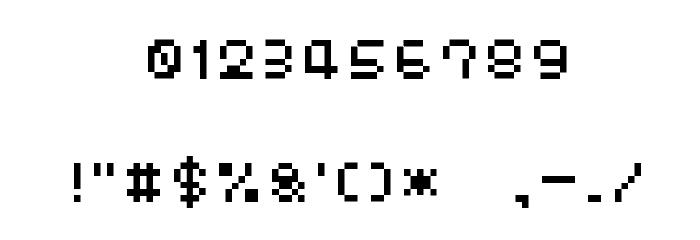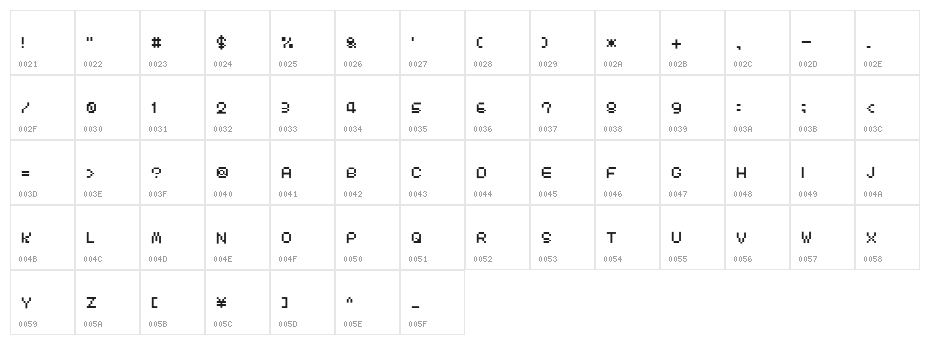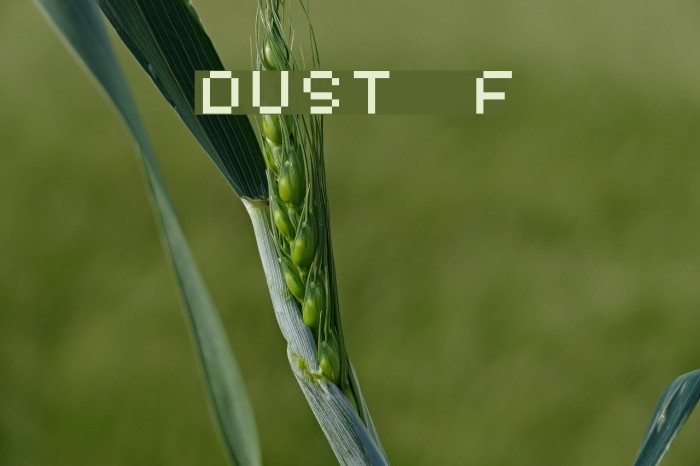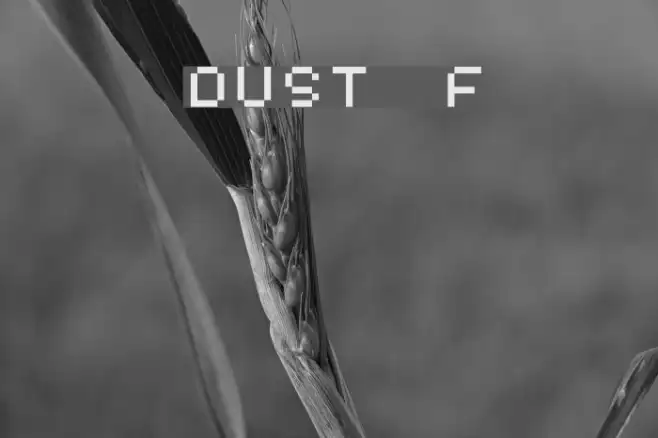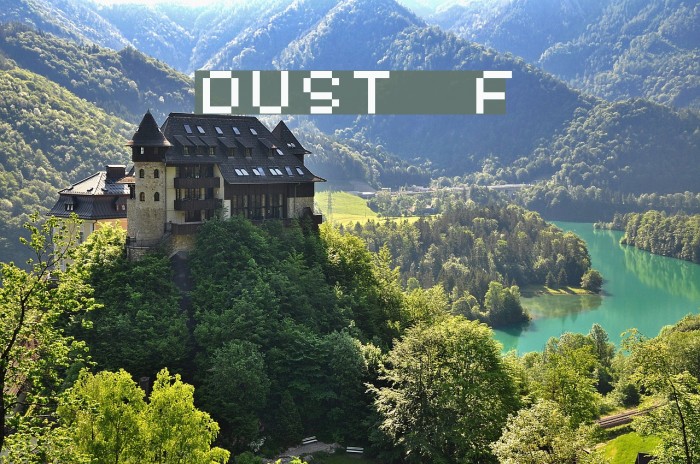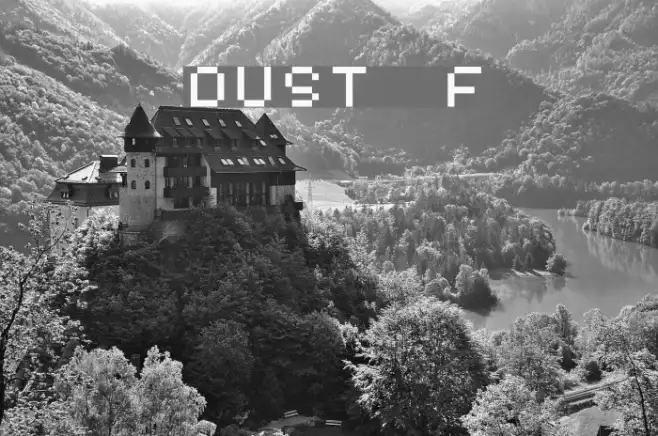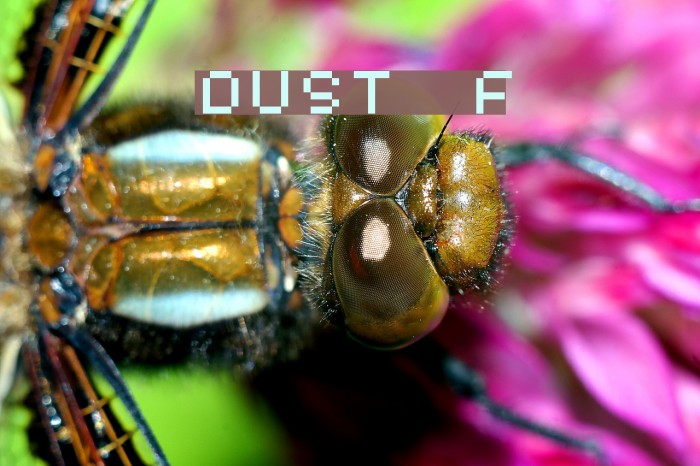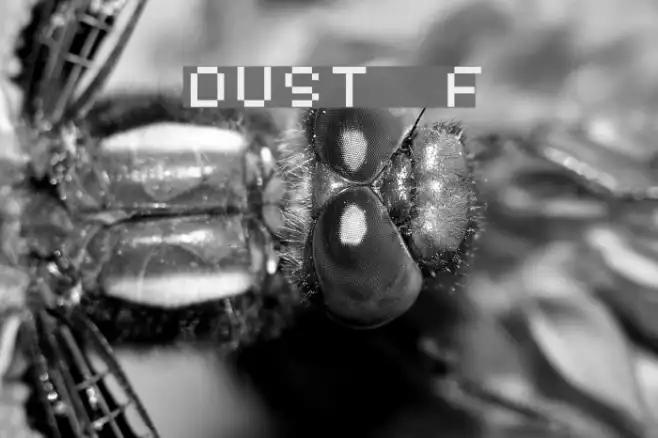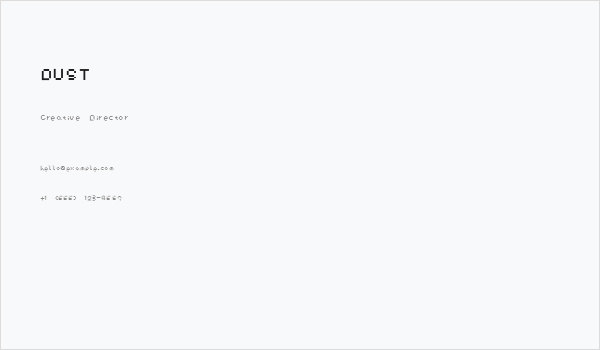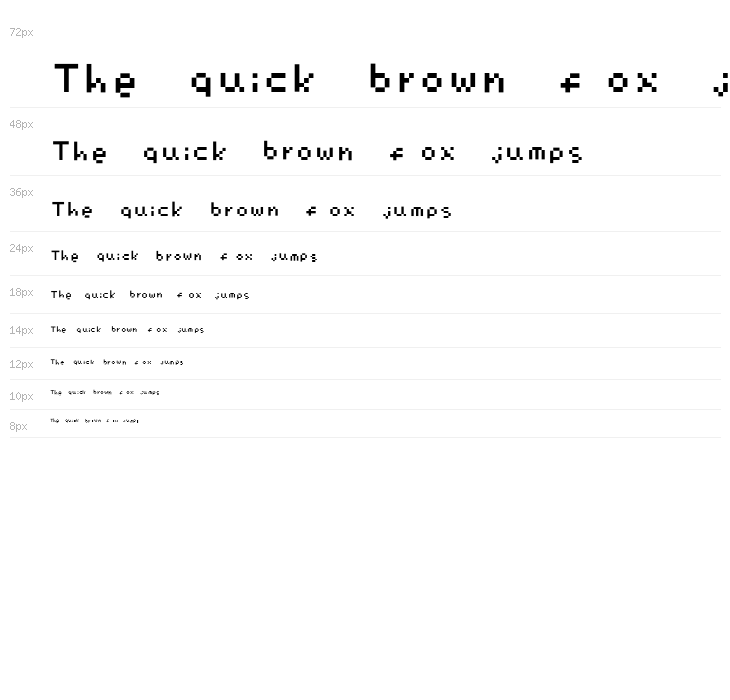
DUST Font
DUST Description
This font features a pixelated, blocky style reminiscent of early digital displays and retro video games. The characters are uniformly spaced and constructed with a grid-like precision, giving it a distinctly digital and nostalgic appearance. The uppercase and lowercase letters maintain a consistent height, contributing to a uniform look across text. The numbers and special characters follow the same design principles, ensuring a cohesive visual experience. This font's simplicity and geometric structure make it highly legible at various sizes, while its retro aesthetic adds a playful and vintage touch to any design.
| Use Case | Logos, Headlines, Digital Art |
| Proposed Projects | Ideal for retro-themed designs, video game graphics, digital art projects, and any creative work that seeks to evoke nostalgia for early computing and gaming eras. |